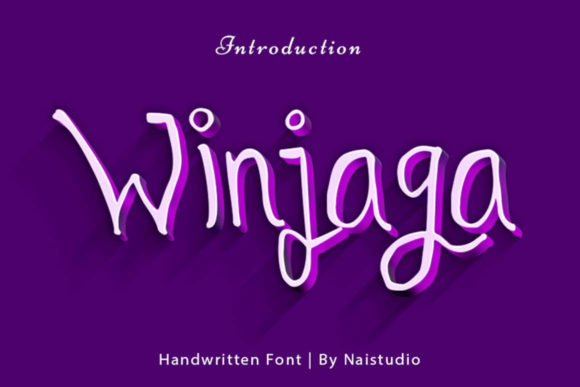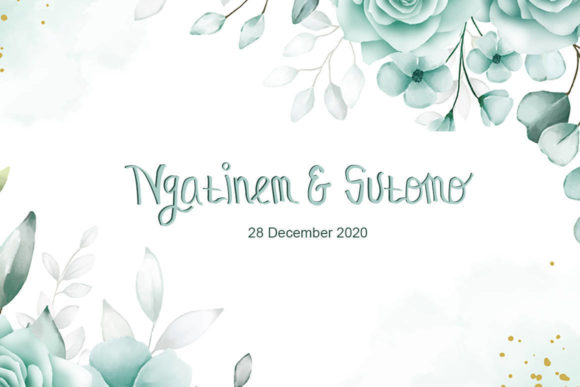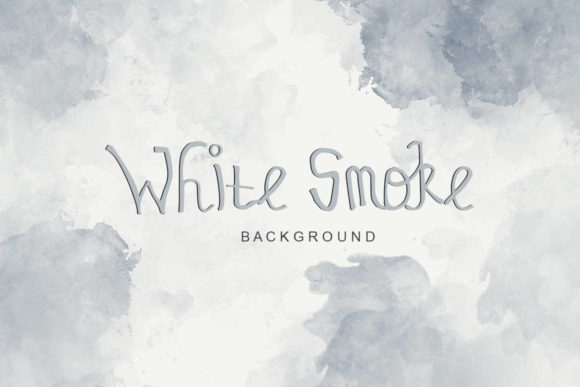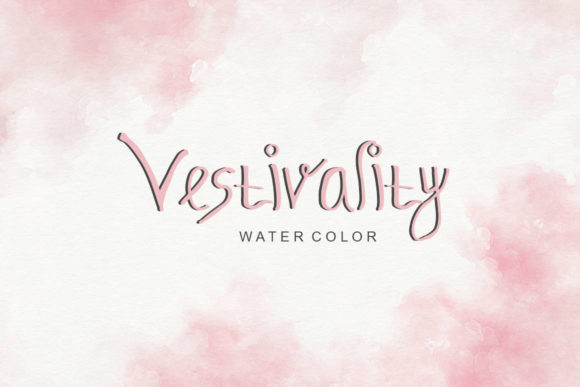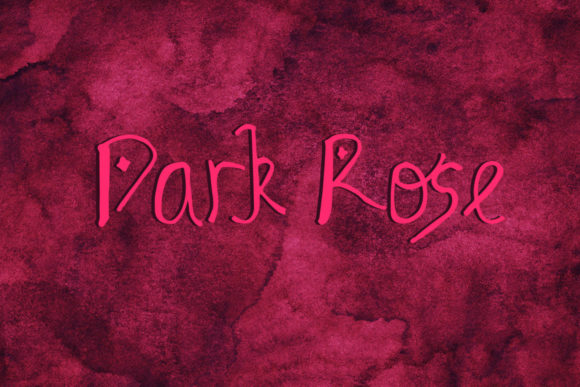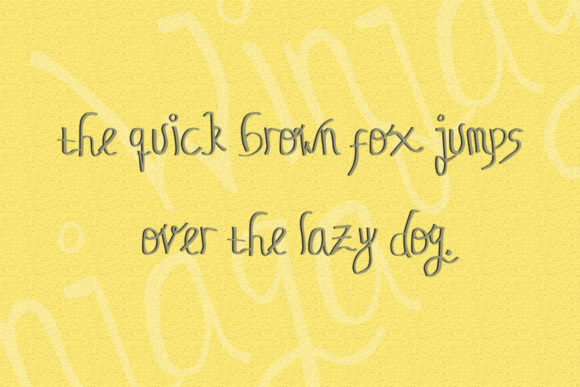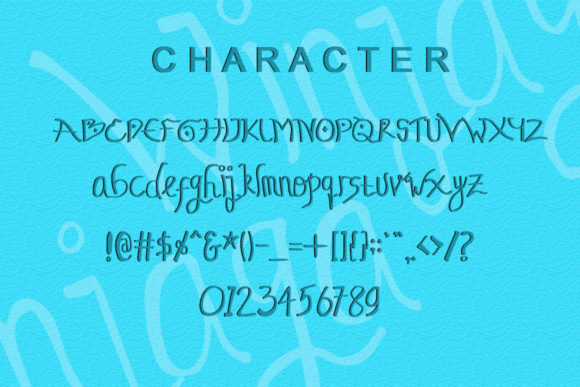
Winjaga Font
About Winjaga Font
Winjaga is a delightful and whimsical handwritten font that can bring a joyful and playful touch to any design. Its unique style and charming appearance make it a perfect choice for a wide range of creative projects. Here are some ways to use Winjaga and make your designs stand out:
1. Children’s Books and Illustrations: Create captivating and fun illustrations for children’s books using Winjaga’s quirky and playful letters.
2. Party Invitations: Design adorable and eye-catching party invitations with Winjaga, adding a cheerful vibe to the celebration.
3. Greeting Cards: Craft charming and personalized greeting cards for various occasions, from birthdays to special holidays.
4. Social Media Graphics: Use Winjaga to design engaging and colorful graphics for your social media posts, capturing the attention of your audience.
5. Website Headers: Add a touch of whimsy to your website headers or banners with Winjaga’s joyful lettering.
6. Art Prints: Create cheerful and inspiring art prints using Winjaga to brighten up living spaces and offices.
7. Craft and DIY Projects: Incorporate Winjaga into various craft projects like handmade cards, gift tags, or scrapbooking.
8. Logo Design: Design playful and memorable logos for brands or businesses seeking a fun and friendly identity.
9. Product Packaging: Add a cute and quirky touch to product packaging, making your products stand out on the shelves.
10. Labels and Stickers: Create charming labels and stickers for products, gifts, or handmade items using Winjaga’s delightful style.
11. Personalized Gifts: Use Winjaga to personalize gifts and make them extra special for your loved ones.
12. Stationery Design: Design playful and vibrant stationery sets using Winjaga, perfect for correspondence or creative expression.
13. Wall Art and Murals: Create colorful and artistic wall art or murals using Winjaga’s unique and joyful lettering.
14. Calendars and Planners: Design fun and whimsical calendars or planners, adding a touch of cheerfulness to daily organization.
15. T-shirt Designs: Create cute and quirky t-shirt designs with Winjaga for a fun and stylish look.
16. Posters and Flyers: Design eye-catching posters and flyers for events or promotions with Winjaga’s playful appeal.
17. Educational Materials: Use Winjaga to design engaging and lively educational materials for kids.
18. Wedding Decorations: Add a touch of joy and playfulness to wedding decorations, such as banners, signs, and table cards.
19. Restaurant Menus: Use Winjaga to design playful and attractive menus for family-friendly restaurants or cafes.
20. Stylized Quotes: Turn inspiring or motivational quotes into colorful and artistic designs with Winjaga.
The whimsical and playful nature of Winjaga can infuse your designs with a sense of happiness and joy. From children’s projects to branding and beyond, Winjaga can add a lively and distinctive touch to your creative ideas, making them stand out and leave a lasting impression on your audience. So, let your creativity soar and have fun with Winjaga to create delightful and enchanting designs!